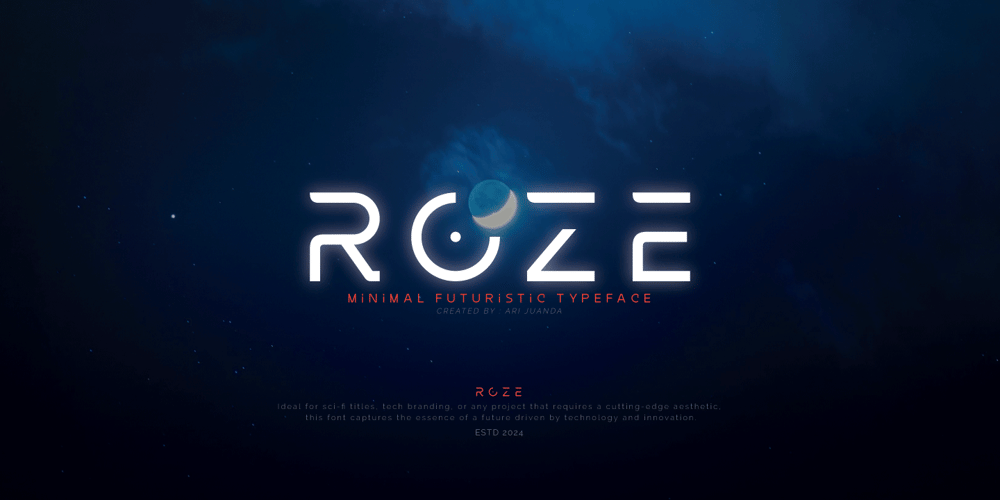
Roze Font Family was designed by Ari Juanda and published by Linecreative. Roze contains 1 styles and family package options. Introducing the new font ‘Heroes’, a futuristic font that is perfect for outer space, future technology, and innovative products!What you get dear, you will get :Roze- A clean San serif font including Upper & Lowercase characters(ALL CAPS),Supports Multi linguage (Latin Western Europe),Numbers and Punctuation